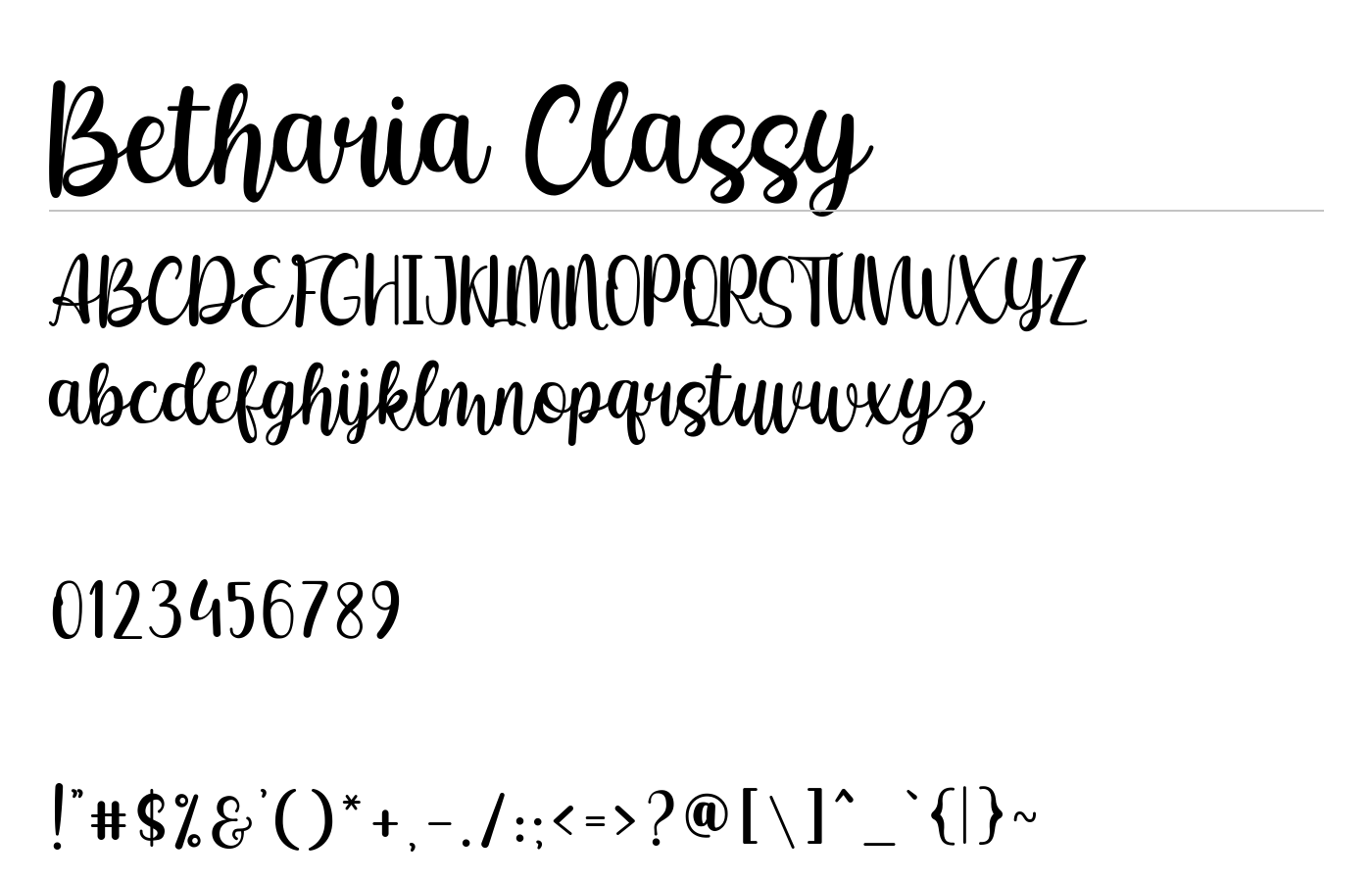
Betharia Classy is a charming handwritten script font with smooth, flowing strokes and a playful yet elegant feel. Its moderate weight and tall x-height make it highly readable while maintaining a natural, casual style perfect for branding, invitations, and creative projects seeking a friendly, sophisticated touch. This font works well for stylish headlines, packaging, and personalized designs where a warm, approachable aesthetic is desired.
Betharia Classy Font
About Betharia Classy Font